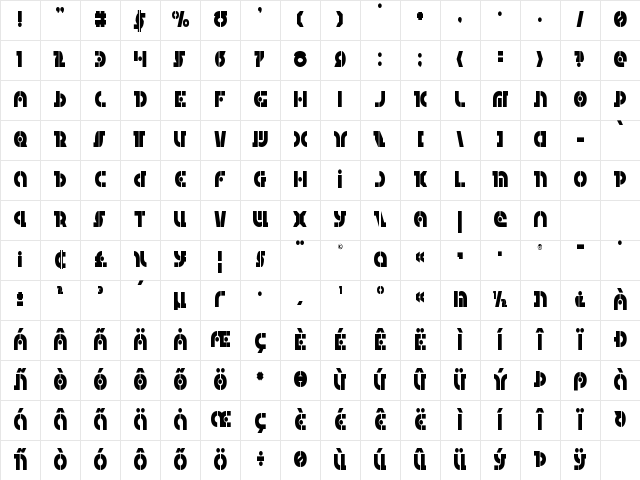
Questlok is a composed and adaptable typeface that performs quietly and consistently across a wide range of design contexts. Its narrow stance lets it pack a punch even in space-constrained designs.